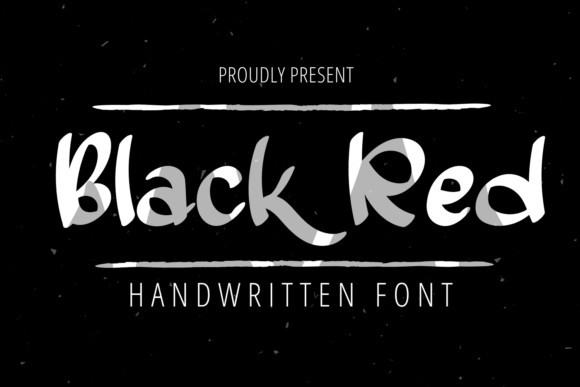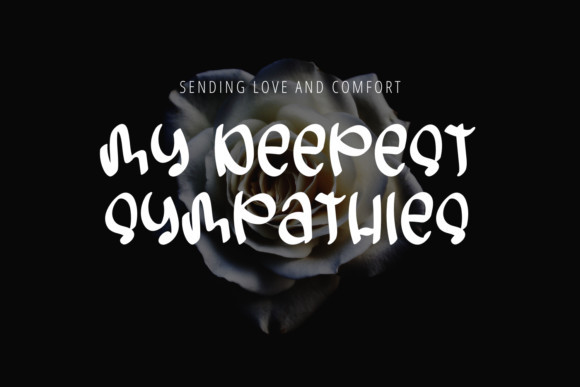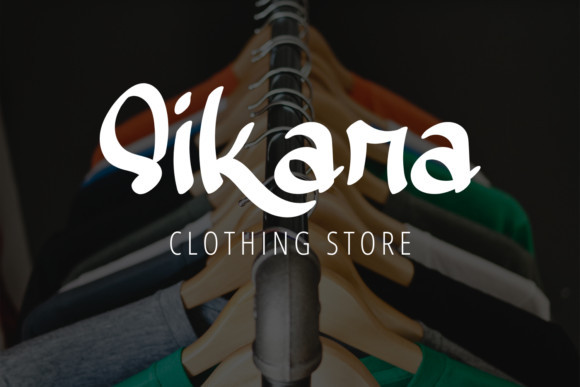
Black Red Font
Black Red is a bold and friendly handwritten font. Fall in love with its incredibly versatile style and use it to create spectacular designs!